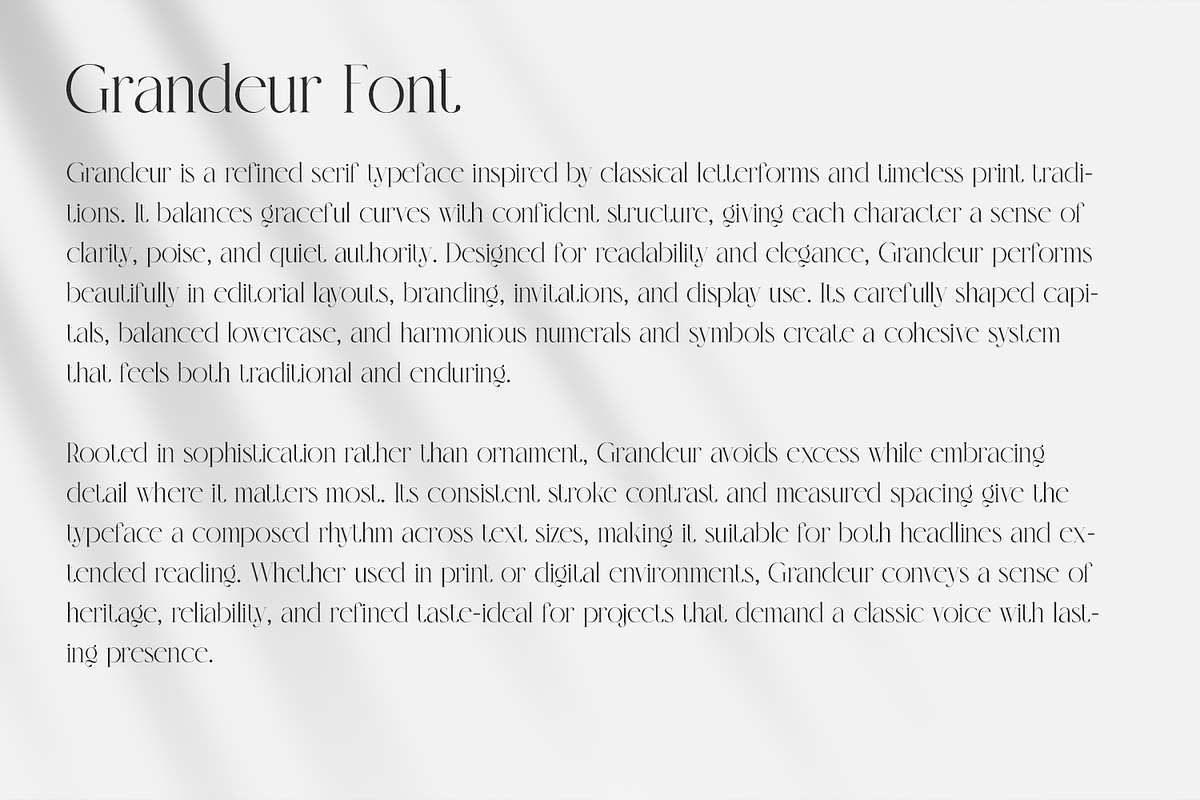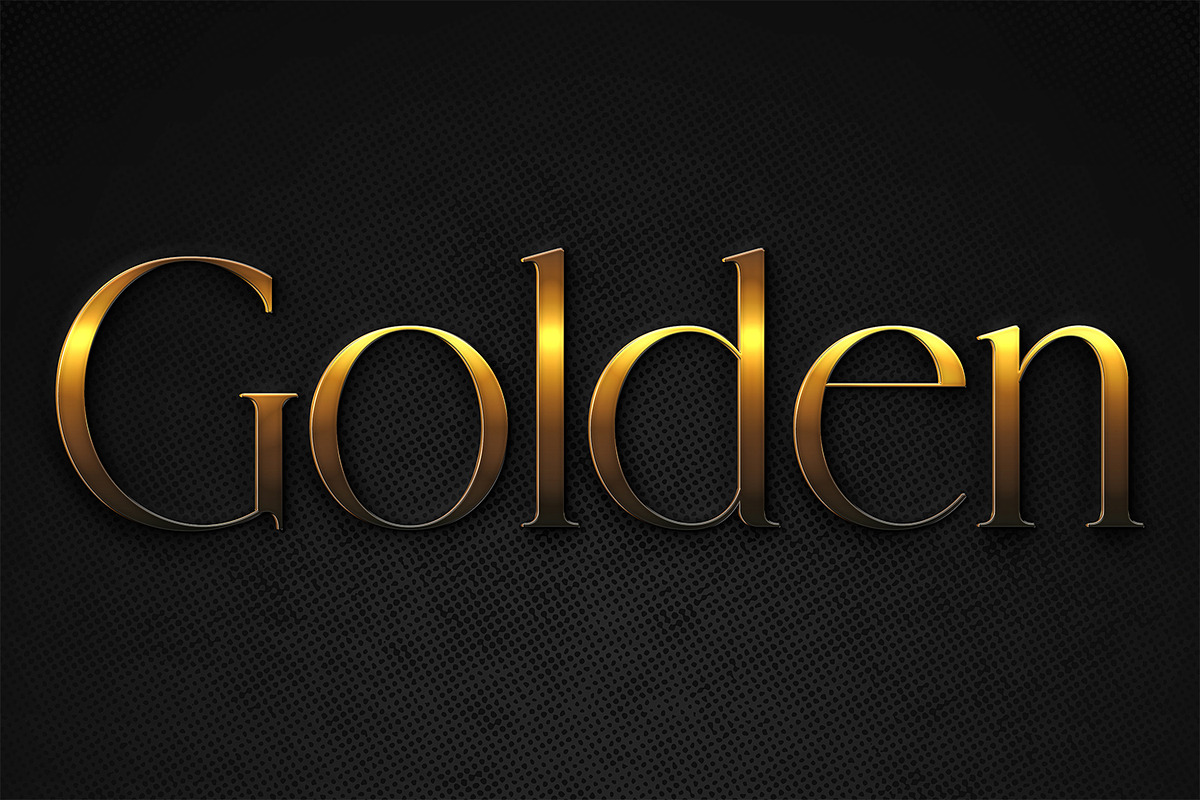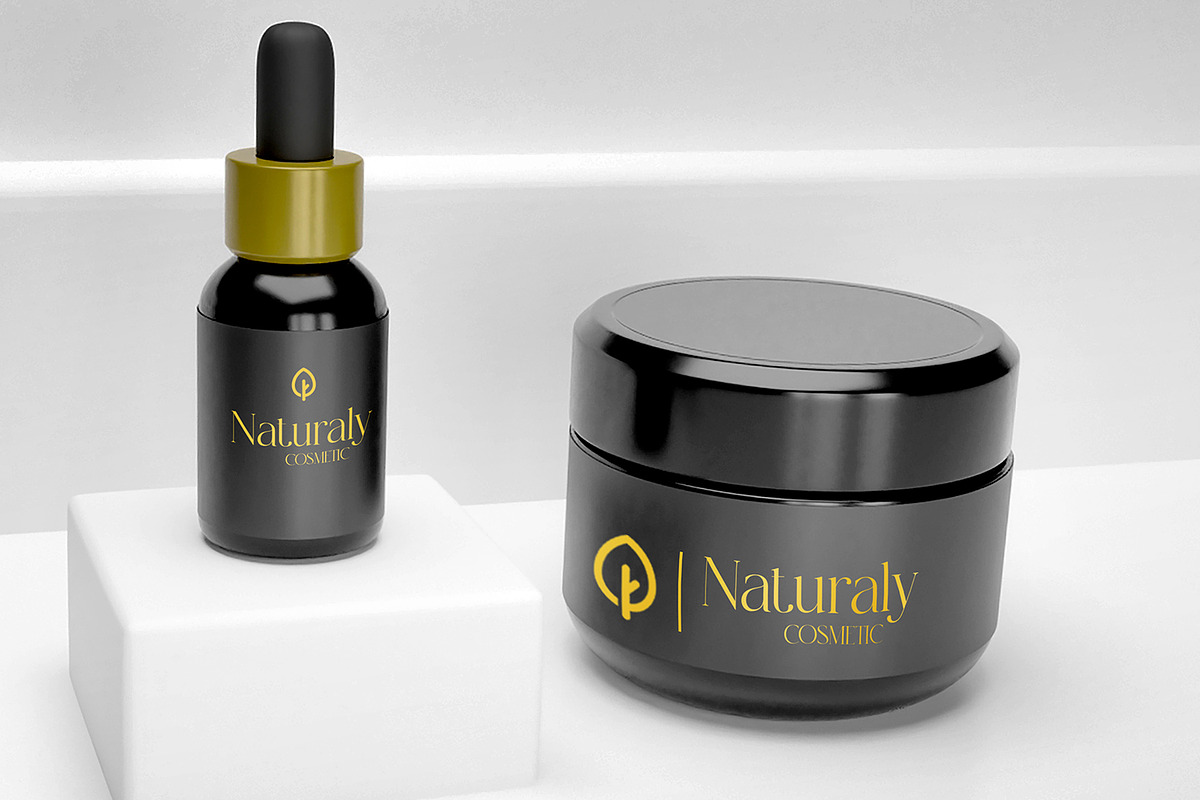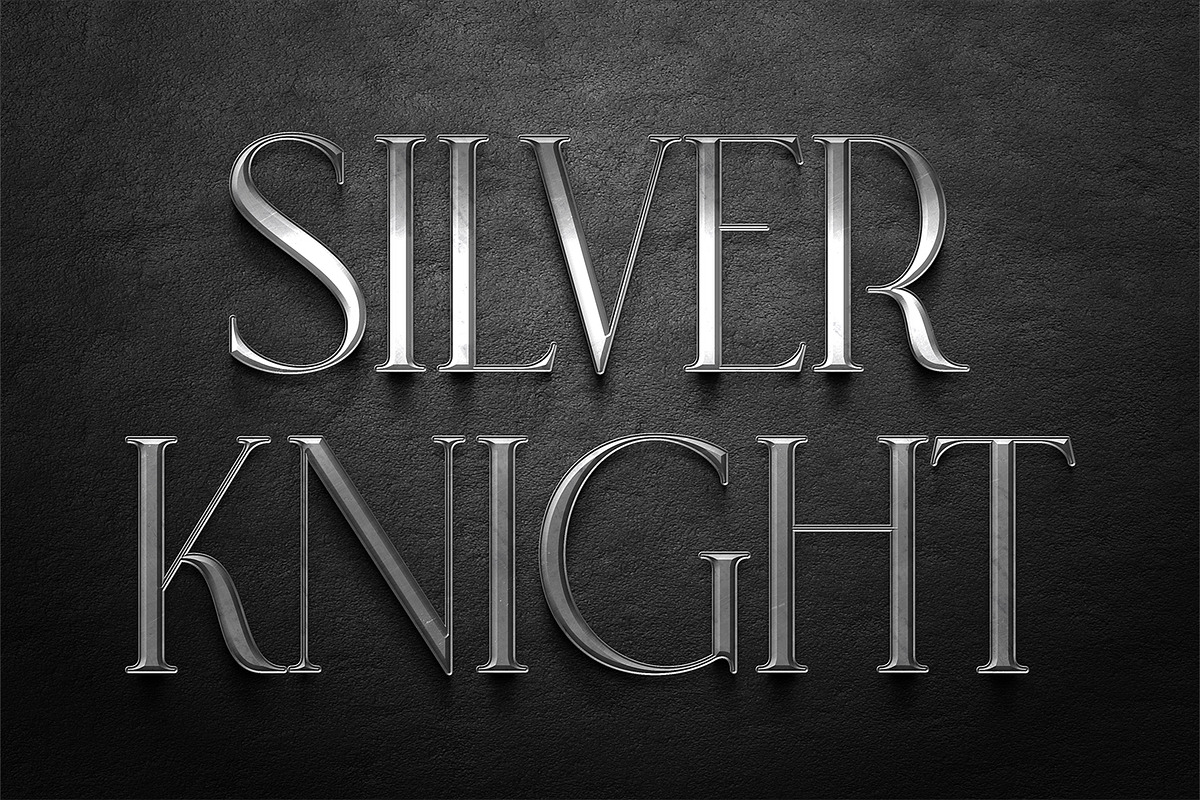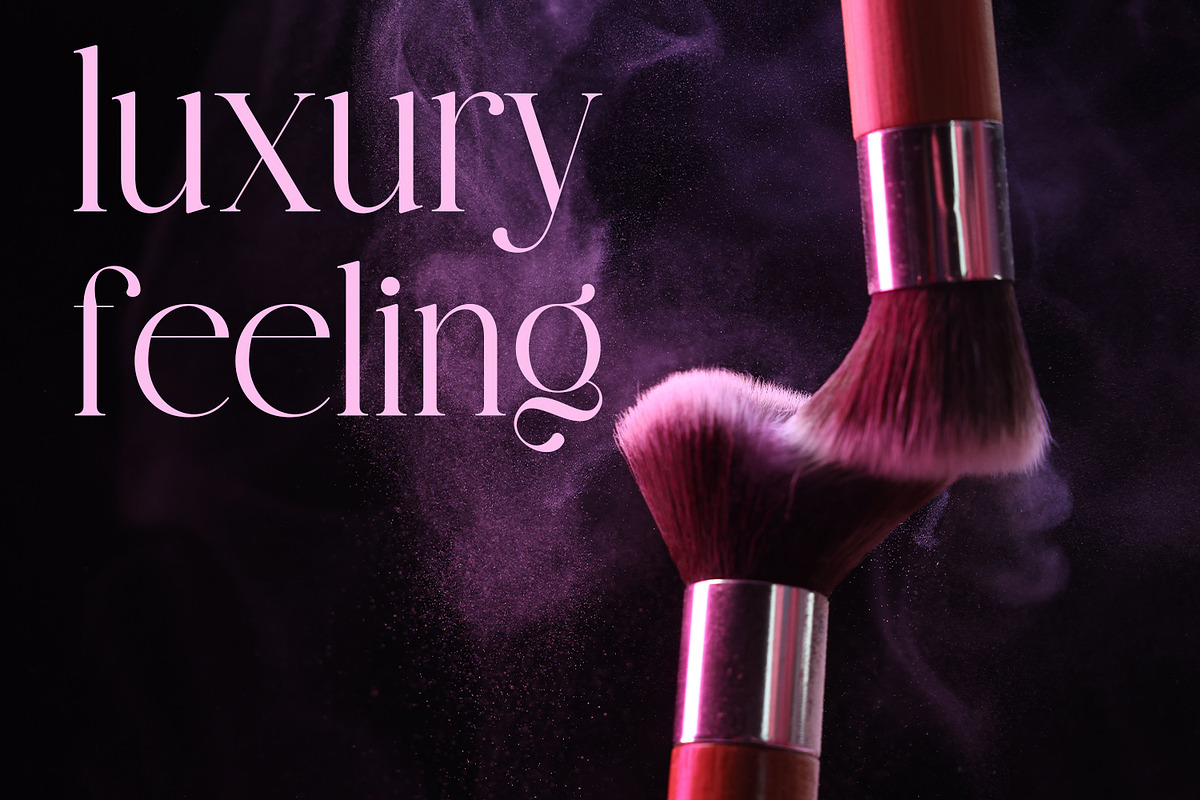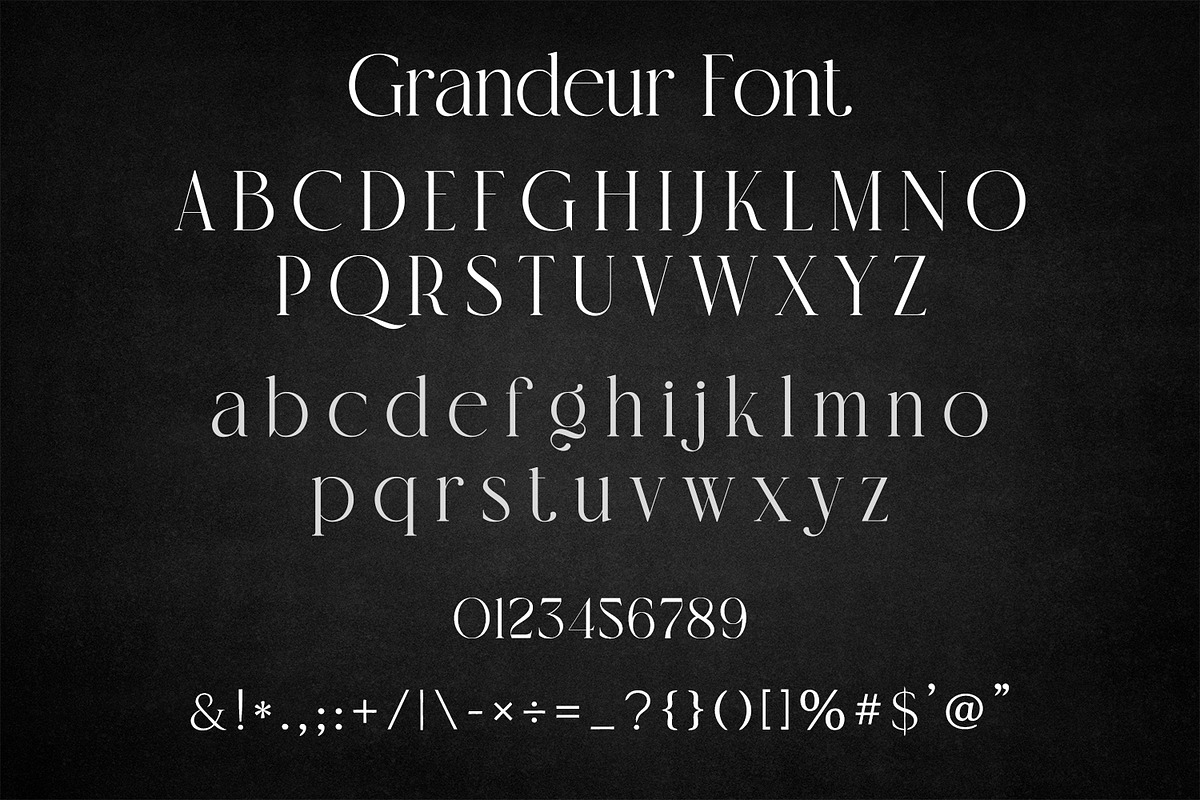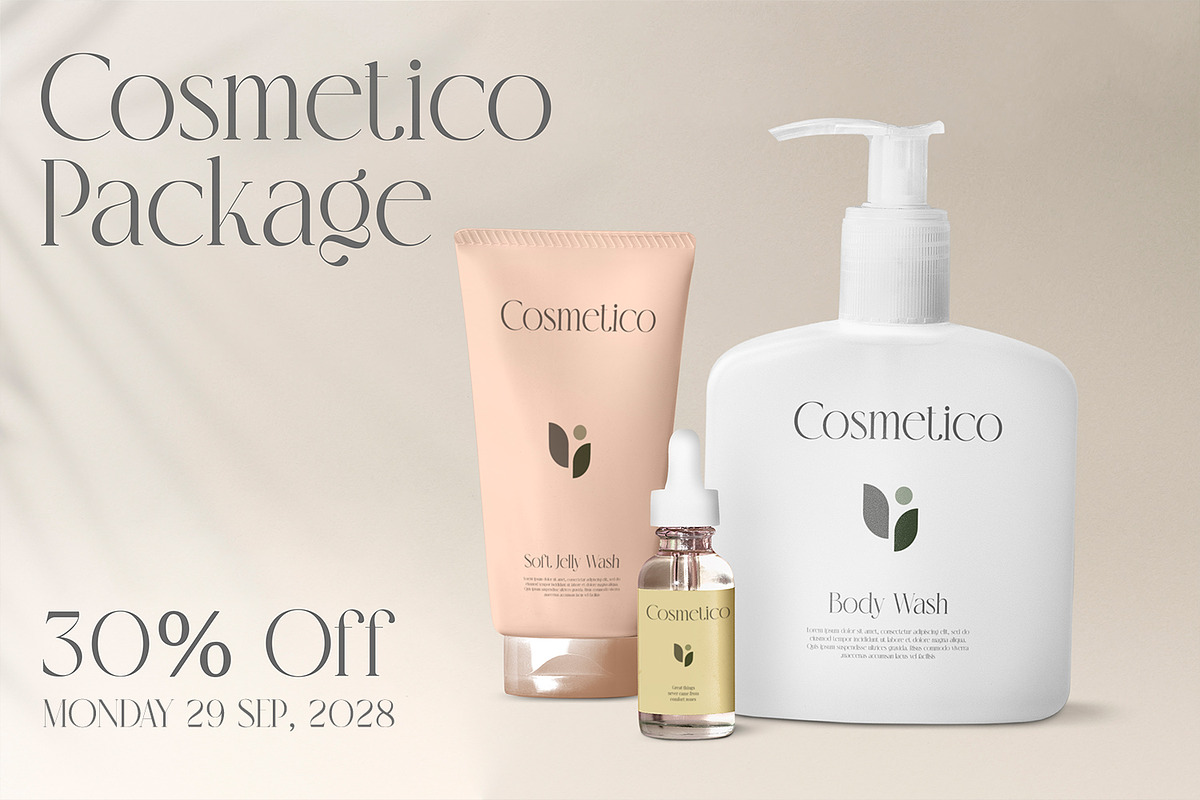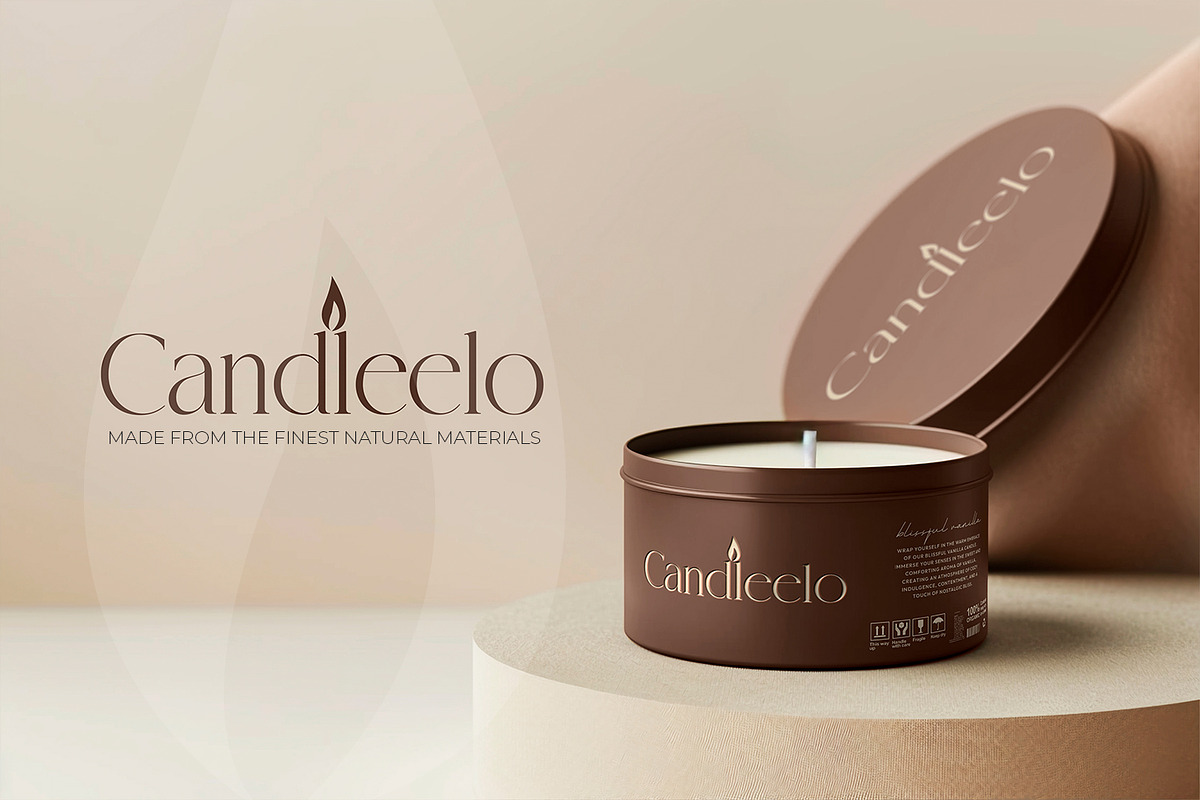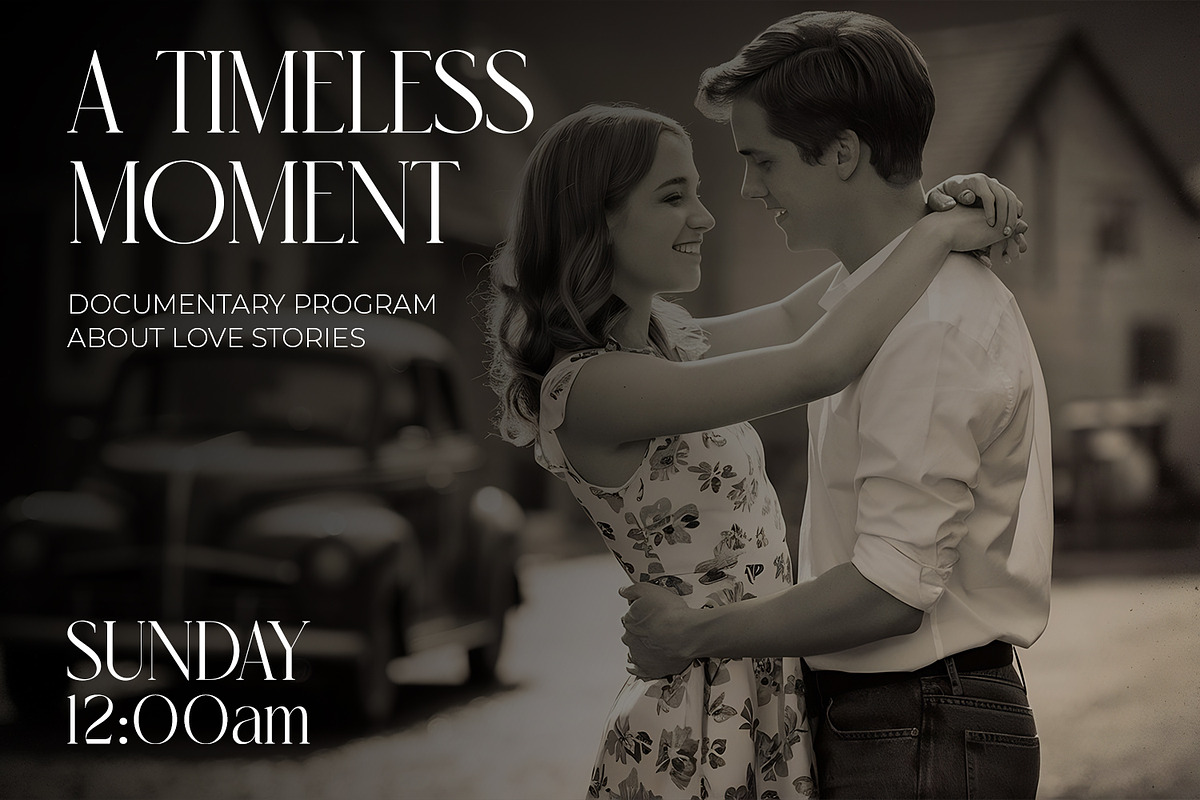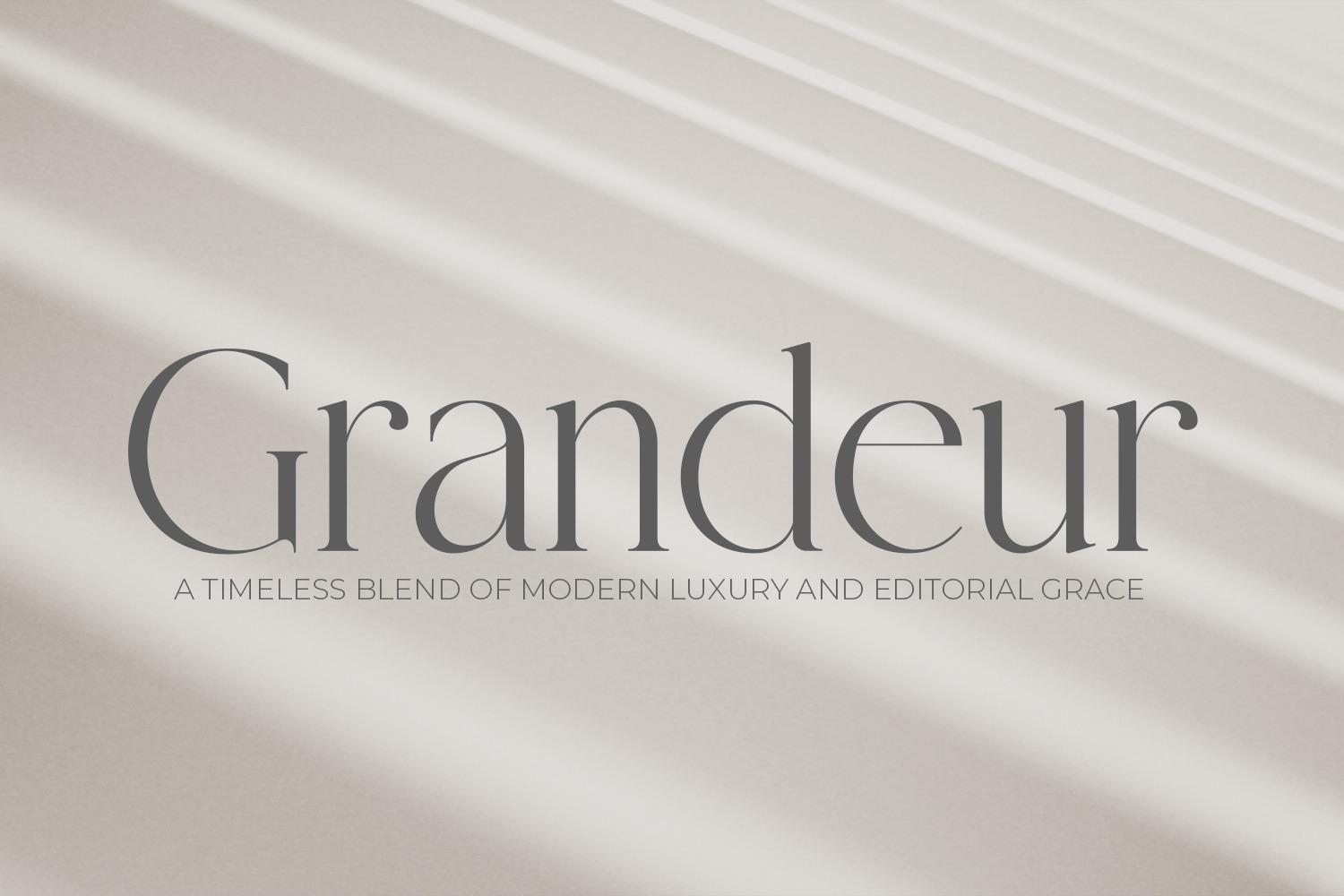
Grandeur – Elegant Classic Font
Grandeur is an elegant and timeless serif font designed to bring sophistication, clarity, and refined character to modern and classic design projects. Inspired by traditional editorial typography and luxury branding aesthetics, Grandeur features graceful curves, balanced proportions, and confident letterforms that feel both premium and enduring. This typeface is perfectly suited for branding, logos, editorial layouts, magazines, cosmetic packaging, wedding invitations, posters, product mockups, and high-end marketing materials. With well-crafted uppercase and lowercase letters, numerals, and a complete set of punctuation and symbols, Grandeur delivers excellent readability and visual harmony across both print and digital applications.